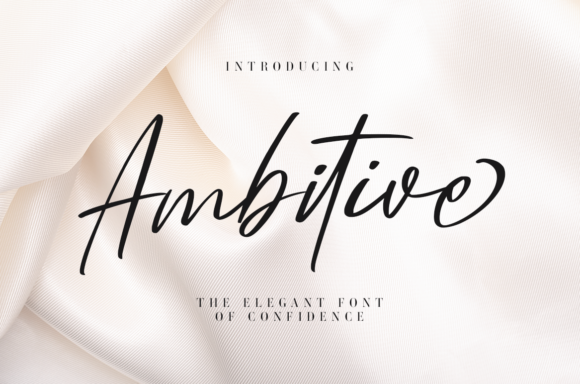
Introducing Ambitious Font - A Script Font Symphony Orchestrating Visual Delights
In the realm of typography, where letters dance and words take flight, there lies a font that captures the essence of elegance and versatility like no other - Ambitious Font. Crafted with meticulous care by the visionary designers at FatmaStudio, Ambitious Font is a script font that redefines the boundaries of creativity.
As its name suggests, Ambitious Font is a testament to the power of aspiration, urging you to embrace your creative ambitions and paint your digital canvas with strokes of brilliance. This font is not just a collection of characters; it's an orchestra of visual elements that harmonize perfectly to create a symphony of visual delight.
Dive into the world of Ambitious Font and discover a universe of possibilities. With its incredibly versatile style, this font adapts seamlessly to a myriad of design projects, from the delicate artistry of wedding invitations to the bold statements of social media posts. The possibilities are endless, like a constellation of stars waiting to be explored.
Imagine the allure of a wedding invitation adorned with the graceful curves of Ambitious Font, each letter flowing into the next like a whispered promise of love and commitment. Its elegant strokes add a touch of timeless sophistication, transforming your invitation into a work of art that will be cherished for years to come.
Picture the beauty of stationary art crafted with Ambitious Font, where each letter blooms with individuality, telling a story of its own. The font's innate versatility allows you to explore various writing styles, from the classic charm of calligraphy to the modern flair of brush lettering. Your stationary art will exude a unique personality that reflects your creative spirit.
Envision the impact of social media posts that captivate audiences with the visual magic of Ambitious Font. Its eye-catching curves and dynamic strokes command attention, making your posts stand out from the digital noise. Whether you're sharing inspiring quotes, promoting your brand, or simply expressing your thoughts, Ambitious Font will amplify your message and leave a lasting impression.